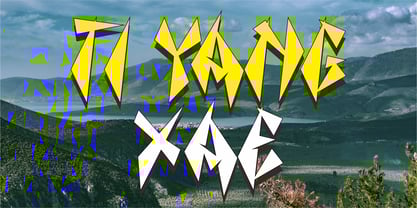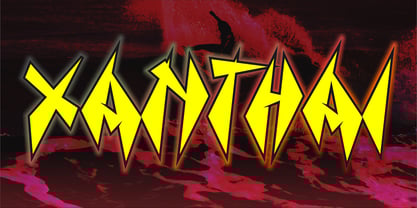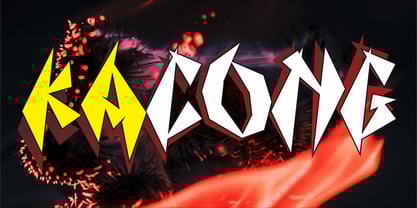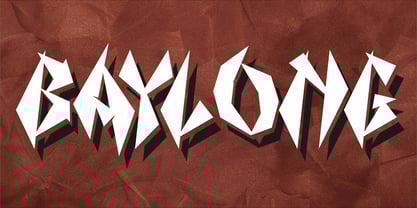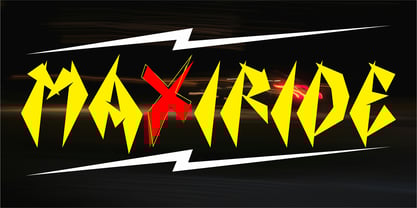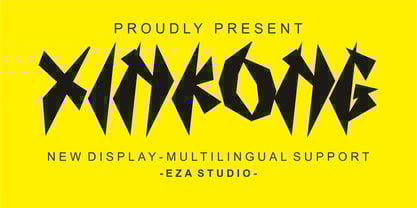
Xinkong
by Eza Studio
The Xinkong Font Family was designed by Aziz Mirza and published by Eza Studio. Xinkong contains 1 styles.
Introducing Xinkong, a playful new font with sharp characters. Ready to bring modern, trendy, and fun typography to your design projects. This font has its own unique characteristics, giving it a very unique look with a balanced thickness and sharp shape. This font was meticulously designed to work perfectly to create a unique and engaging impression. This typeface is perfect for use in writing movie titles, books, logos, and more.
About Eza Studio
Eza Studio, is a creative space where we collaborate with each other to create new, interesting and unique works, especially in the field of lettering. The word eza here is taken from a combination of the name Aziz Mirza as designer and the name Endah as his supporter and beloved wife. I made the name Eza Studio as simple as possible so that it is easy for our consumers to remember. In our other businesses in the printing and design sector we also use the name Eza as our company brand.